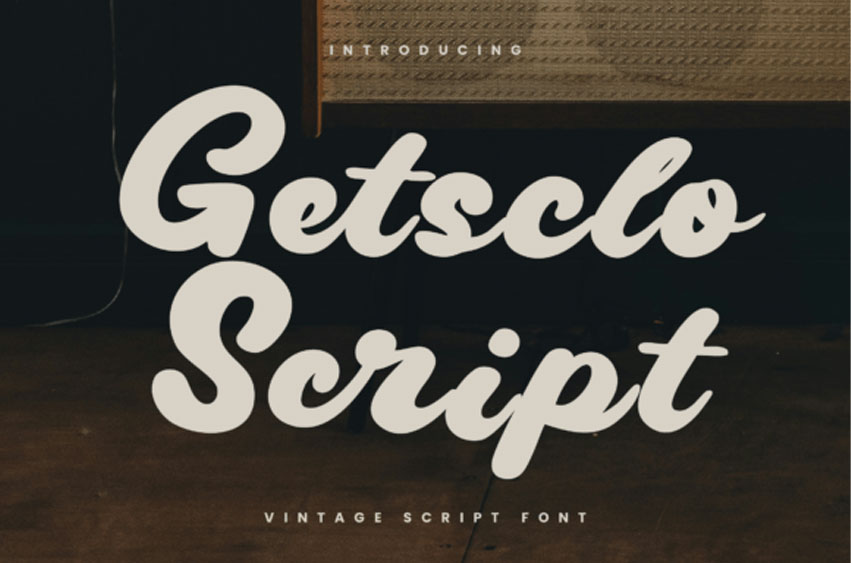
Gestclo Script Font is a bold and charming vintage font that wraps you in warmth, nostalgia, and authenticity. Getsclo Script, a retro-inspired font that draws its inspiration from classic storefront signage and mid-century typography, adds a touch of elegance to your creative projects. It’s flowing curves and strong character presence stand out making it clear and catchy to the viewer. Whether it’s a logo for an artisanal bakery, an appealing window display, or a vintage-themed food package, Getsclo Script brings timeless appeal and professional sophistication.
It’s an ideal choice for a variety of applications including logos and Brand identities, storefront signage (ranging from cafes, bakeries, to barbershops), product packaging and labels, posters and event flyers, book covers and editorial titles, greeting cards, invitations, and enticing menu designs.